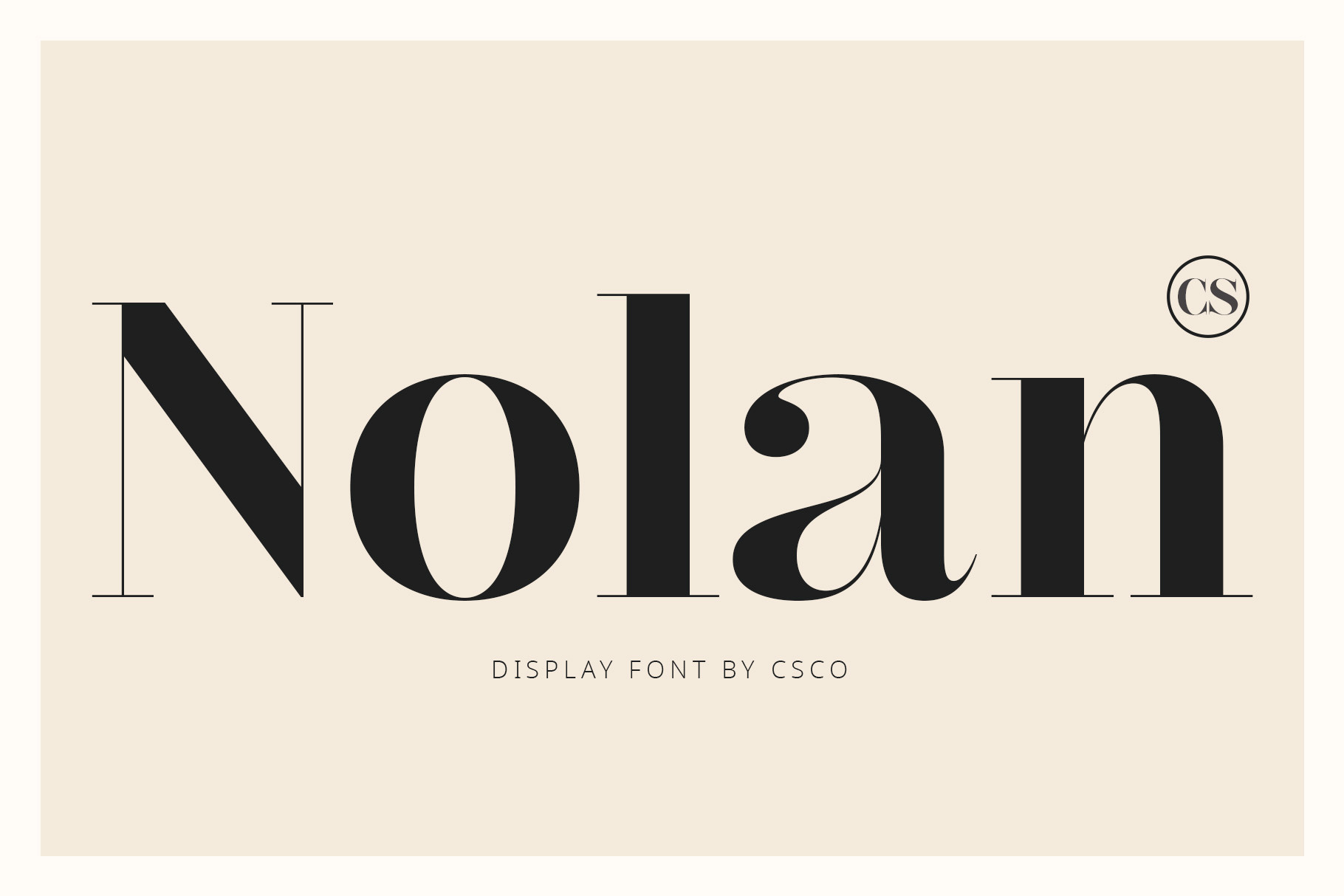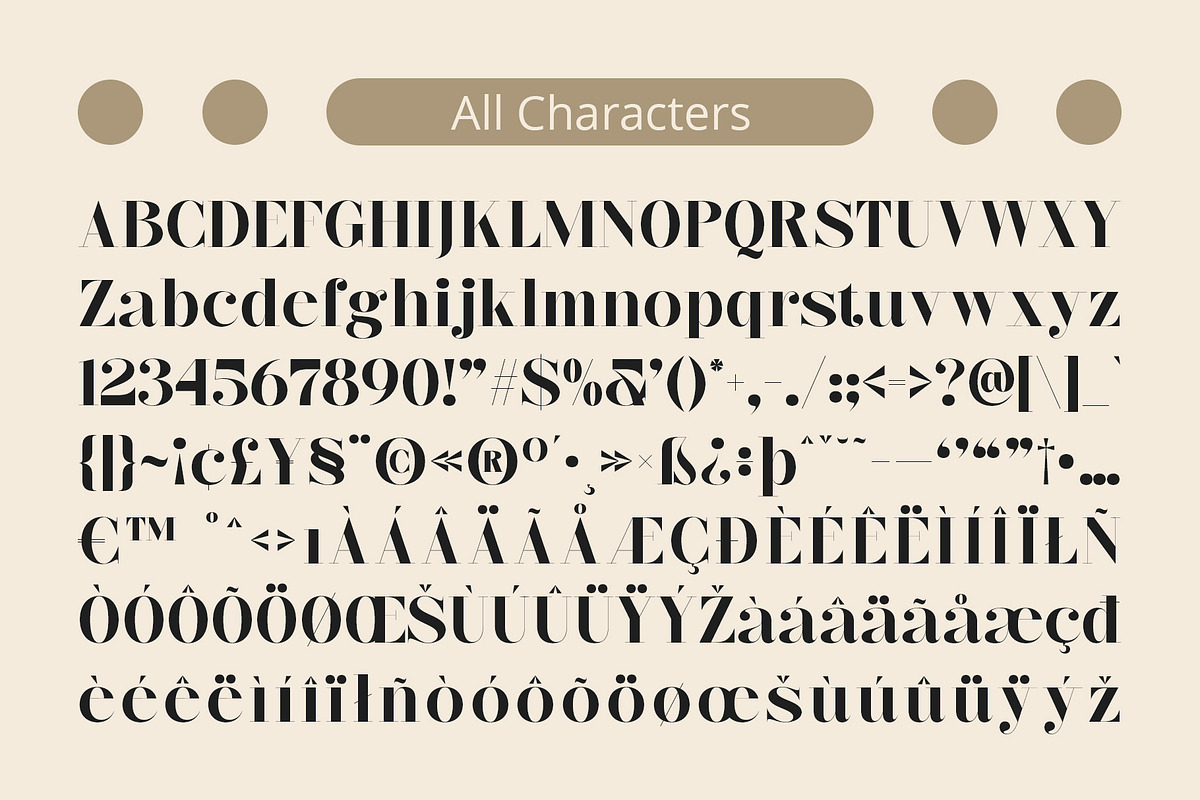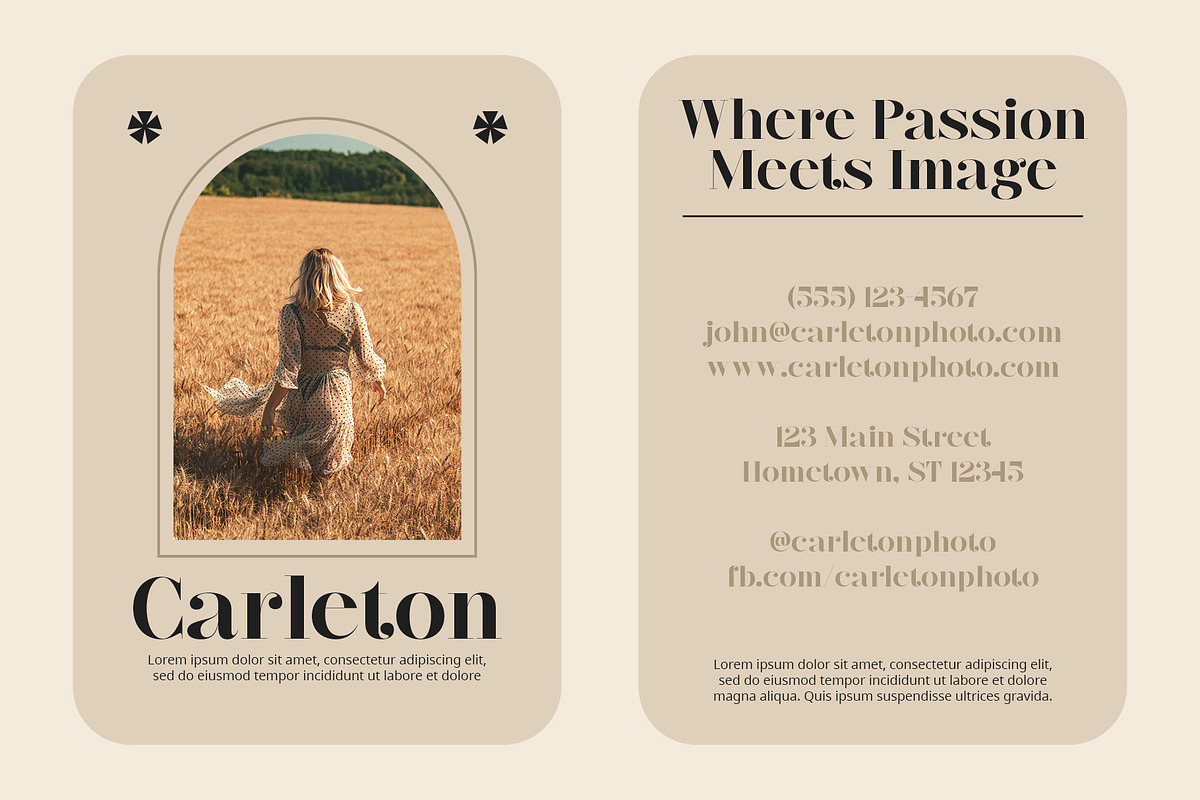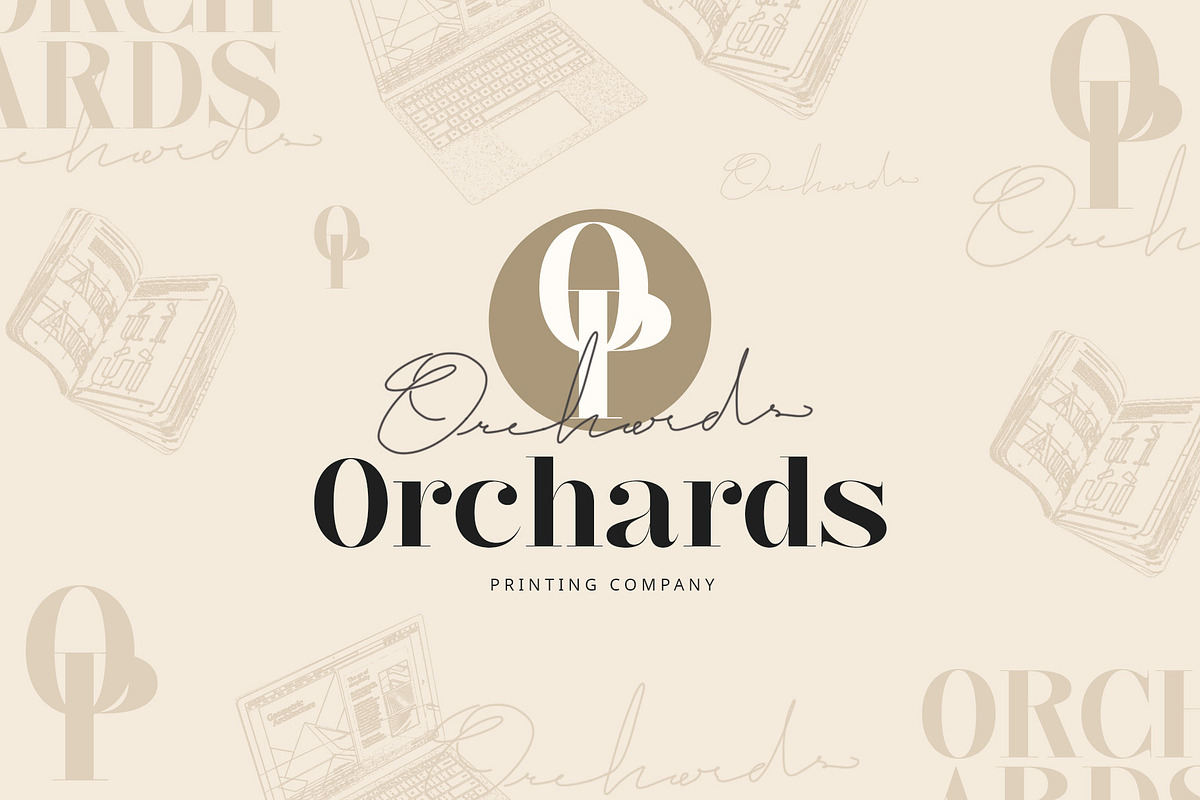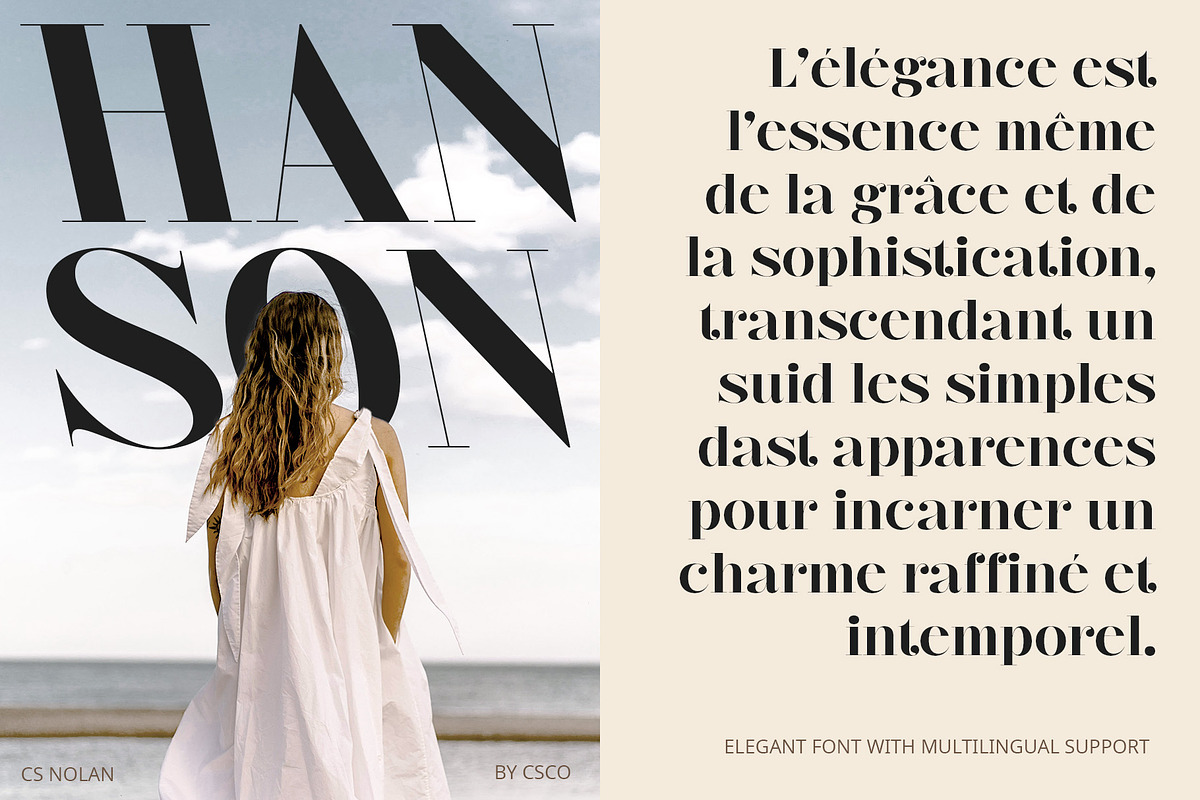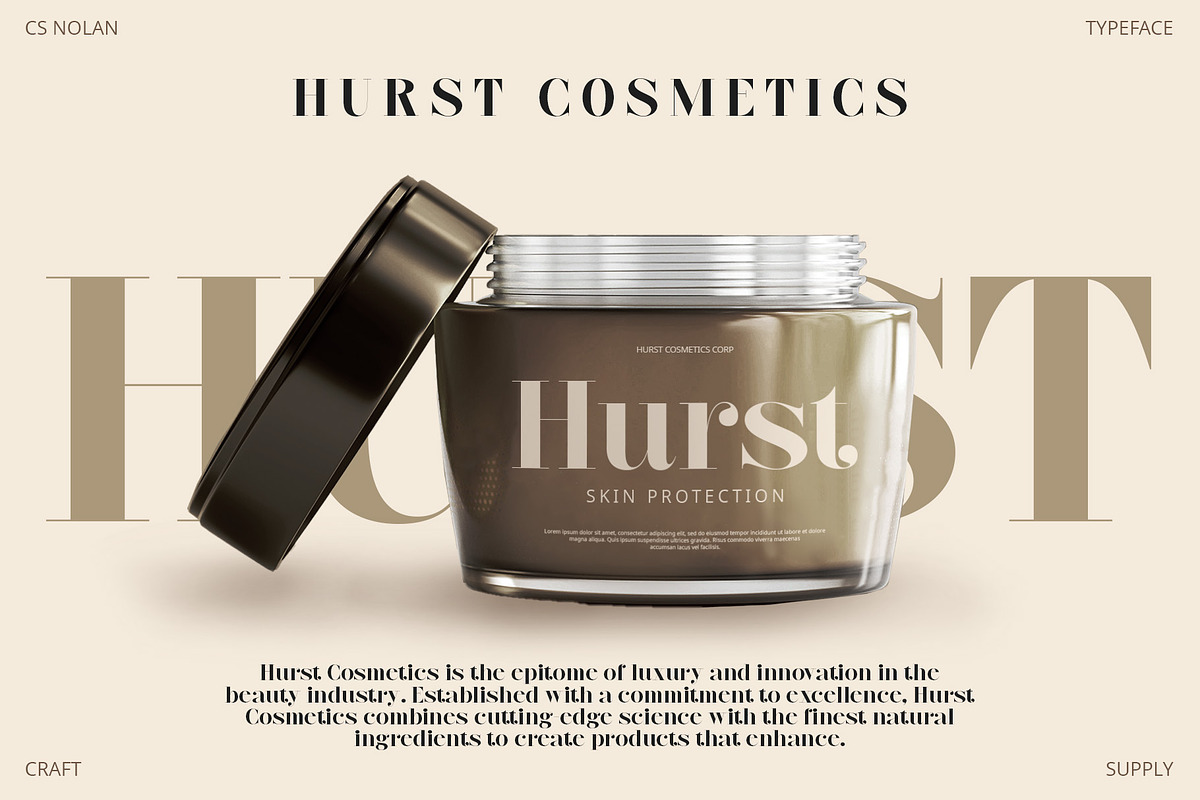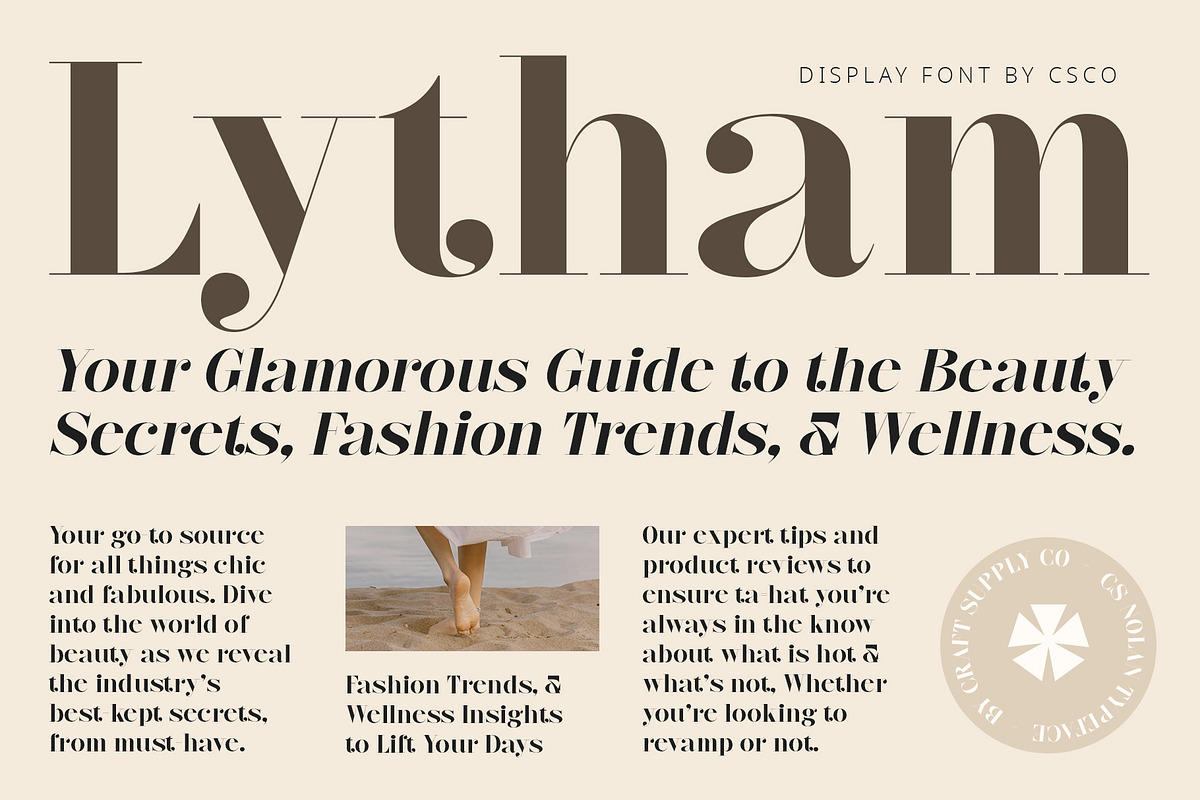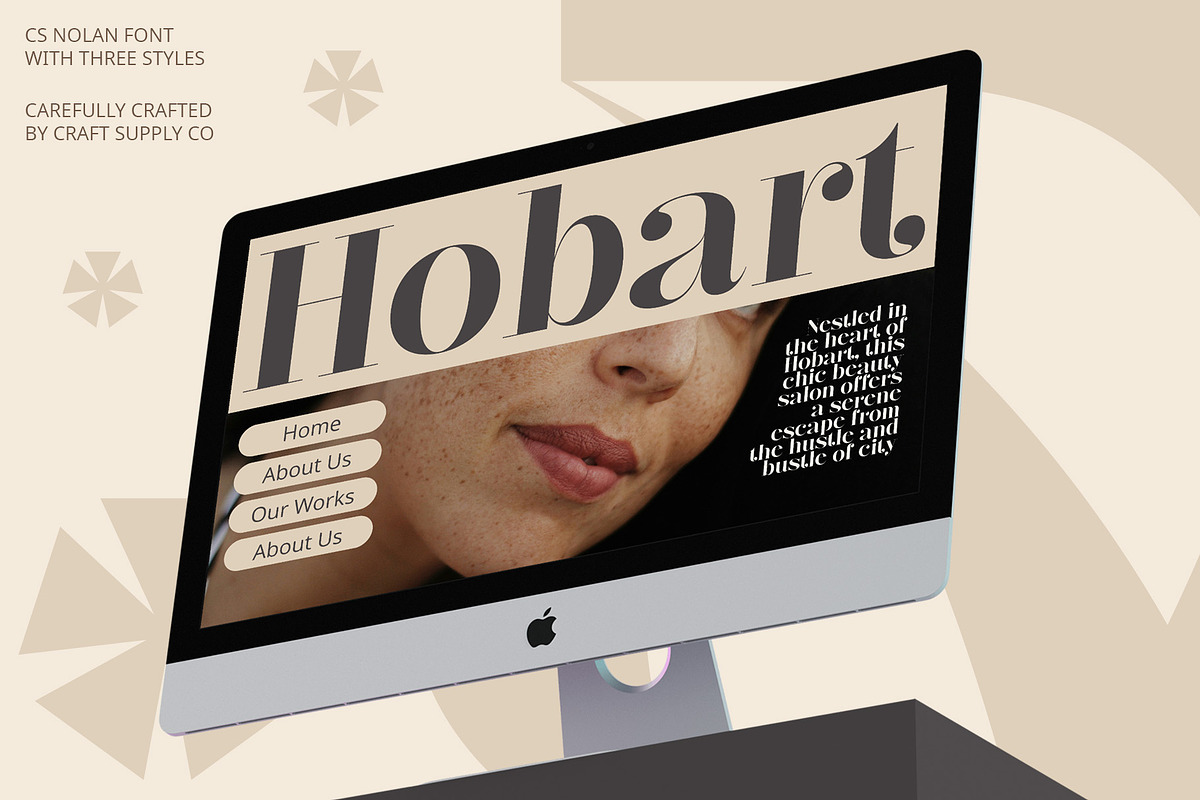
CS Nolan – Classic Font
CS Nolan: Classic Serif Font
Timeless Elegance and Refined Sophistication
CS Nolan is a serif font that embodies classic elegance with its refined shapes and graceful strokes. This font is perfect for creating sophisticated and timeless designs, making it an ideal choice for various design applications.
Elegant and Refined Design
With its refined shapes and graceful strokes, CS Nolan exudes a timeless and elegant appearance. Each character is meticulously crafted to reflect classic sophistication, adding a touch of class to any visual composition.
Ideal for Sophisticated Projects
Perfect for editorial layouts, branding, invitations, and luxury packaging, CS Nolan enhances your projects with its traditional yet stylish look. Whether used for magazine spreads, high-end branding, or wedding invitations, this font brings an air of elegance and refinement to your designs.
Elevate Your Designs with CS Nolan
Choose CS Nolan to elevate your designs with a serif font that embodies classic elegance and sophistication. This font ensures your projects achieve a refined and timeless appeal, making them stand out with class and grace.
- CS Nolan Regular
- CS Nolan Italic
- CS Nolan Reverse Italic